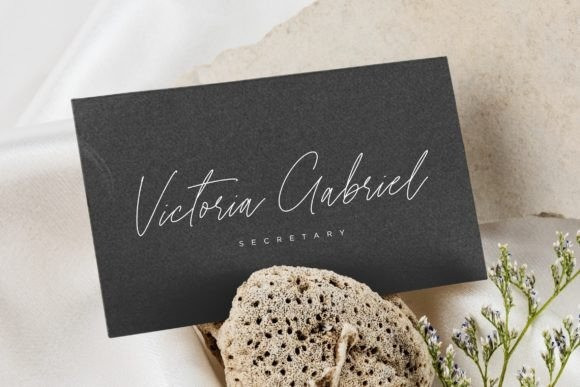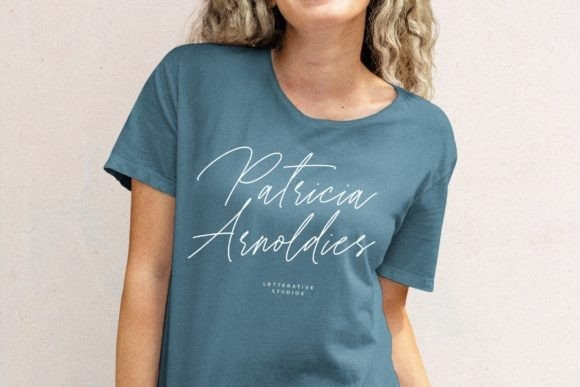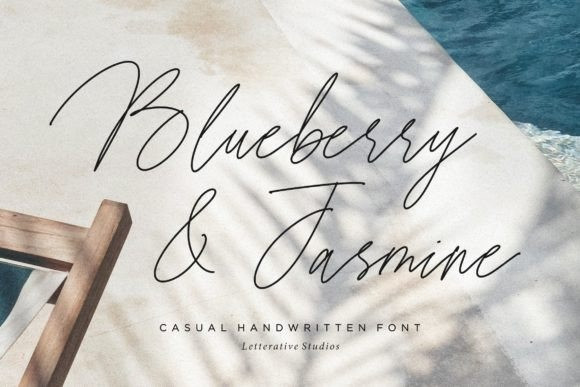
Blueberry And Jasmine Font
Blueberry And Jasmine Font is a modern, monoline handwritten script font. Whether you’re using it for crafts, digital design, presentations, or making greeting cards, this font has the potential to become your favorite go-to font, no matter the occasion!